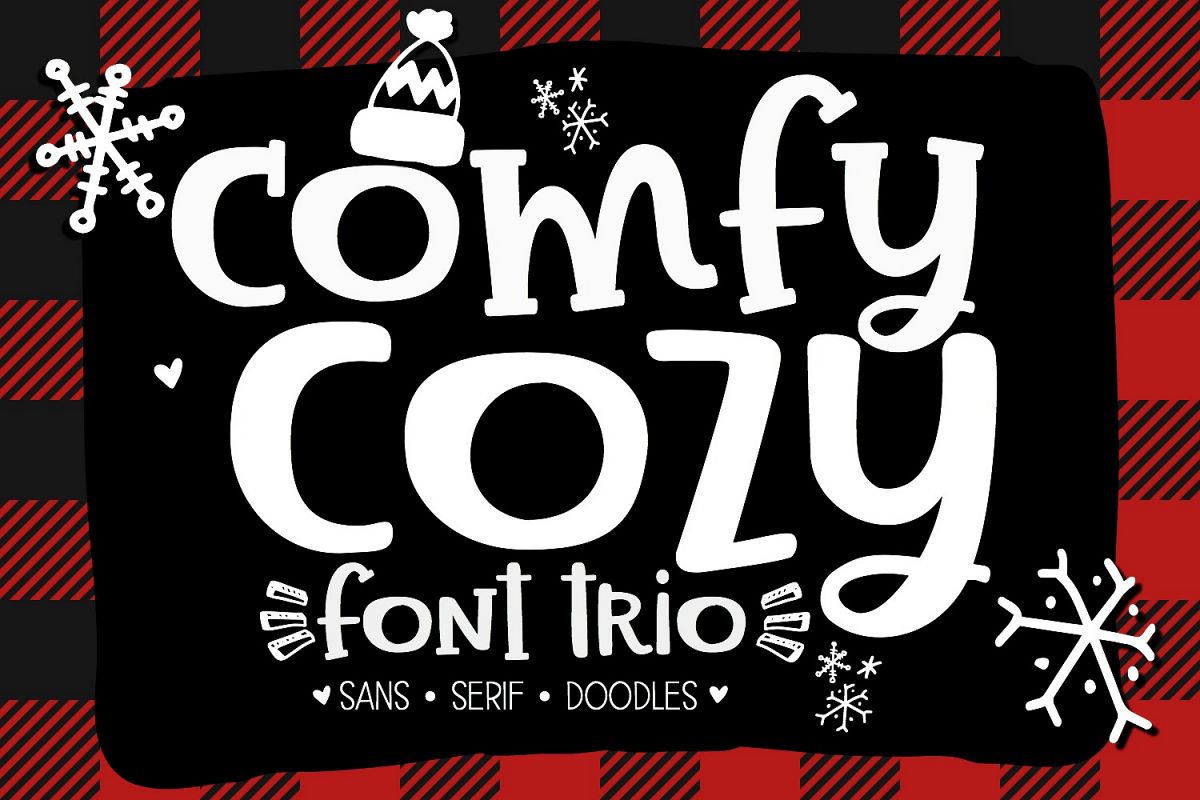
Comfy Cozy Font Trio- Sans, Serif & Doodle Font Bundle
Meet Comfy Cozy: a handwritten font in sans and serif styles + winter/Christmas themed doodles. I've made this font as smooth as possible, reducing the amount of nodes in each glyph to ensure optimal cutting with Cricut, Silhouette or other craft machines. Comfy Cozy supports English and most Western European languages.